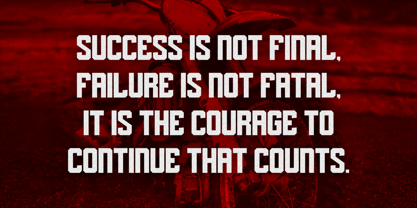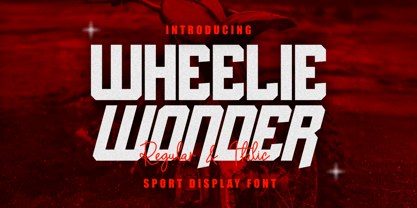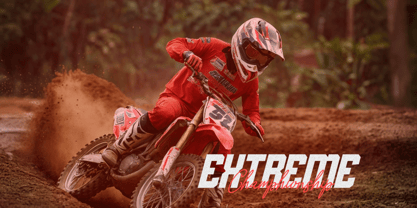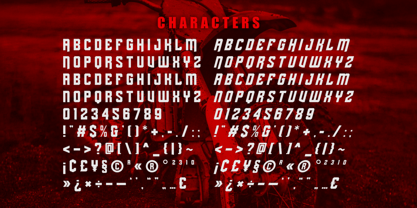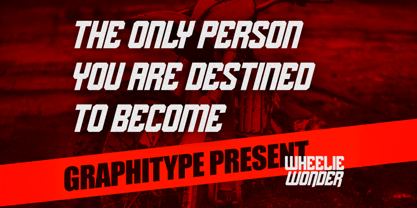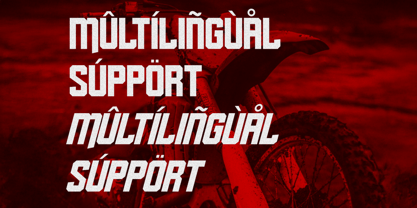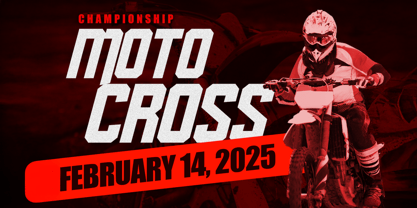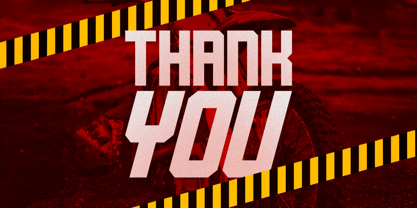
Wheelie Wonder
The Wheelie Wonder Font Family was designed by Faiz Alqurni and published by Illustraly. Wheelie Wonder contains 2 styles and family package options. More about this family
Wheelie Wonder is a bold sport display font built to capture the energy and excitement of modern athletic design. With strong, dynamic letterforms, Wheelie Wonder is perfect for impactful branding, sporty logos, adrenaline-charged headlines, and high-energy social media graphics.
The Regular style offers clean, powerful shapes with a confident stance, while the Italic style injects a sense of motion and speed — ideal for designs that need to feel fast and competitive. Whether you’re crafting sports merchandise, team branding, or powerful poster titles, Wheelie Wonder delivers a winning typographic statement every time.
From activewear branding to event promos and bold editorial layouts, Wheelie Wonder makes sure your typography stands out with bold confidence.
Features:
• Sport display font with bold, modern character
• Two styles: Regular • Italic
• Numerals & punctuation
Bring unstoppable energy to your words with Wheelie Wonder.
Perfect for: Branding • Logos • Posters • Editorial • Social Media • Packaging